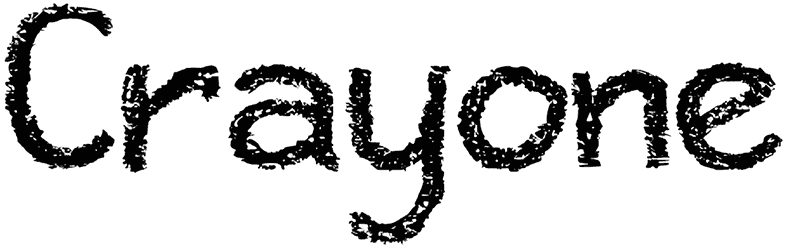
Crayone Font
Follow the small kid inside and get this crayon font. Crayone is a remarkable font that captures the curiosity of a child and creates this playful mood. Yes, this freebie lacks a few punctuation marks.
But you’re still able to take this awesome font and use it in so many different projects like crayon packaging, coloring books, birthday cards, etc. We got an amazing collection of fonts at Resource Boy that we can’t wait till you see it.
The Crayone is a chalky sans. It’s an unique font that is handwritten with crayon pastels.
It can be used for cafe or coffee shop menu lists, branding, photography, watermarks, advertisements, product designs, labels, product packaging, book content, quotes and much more!